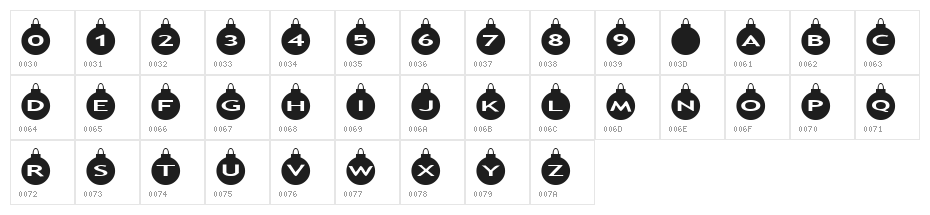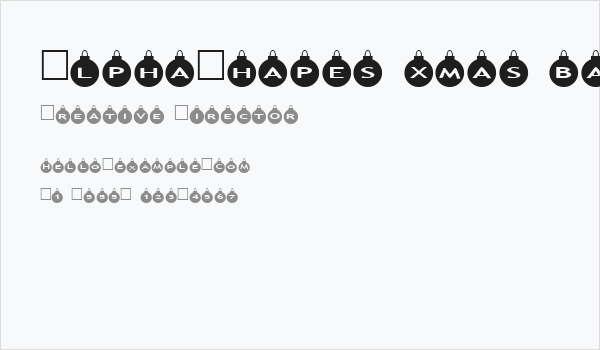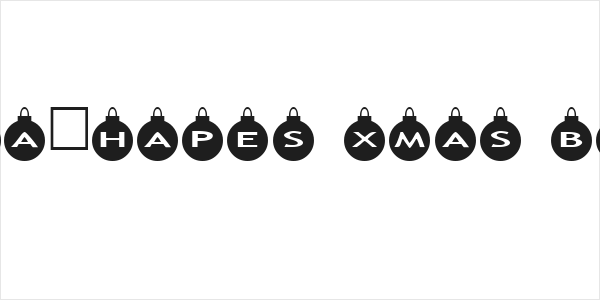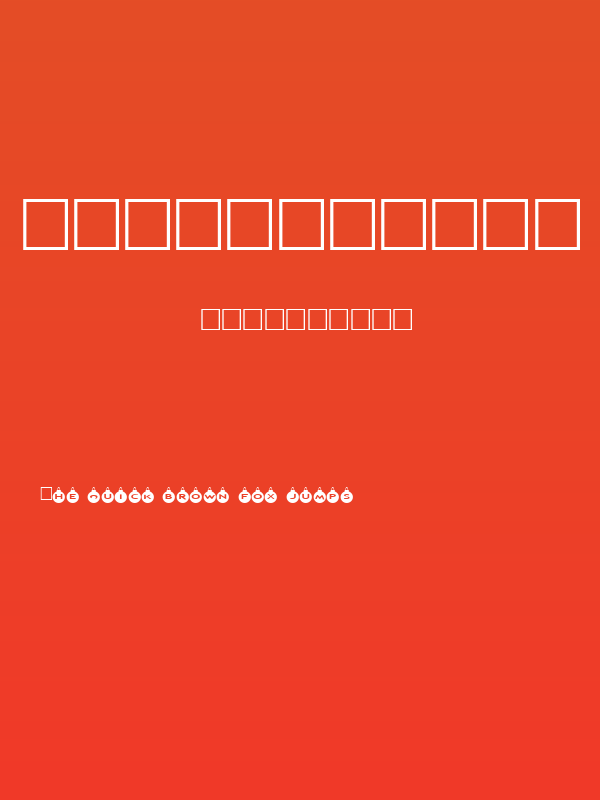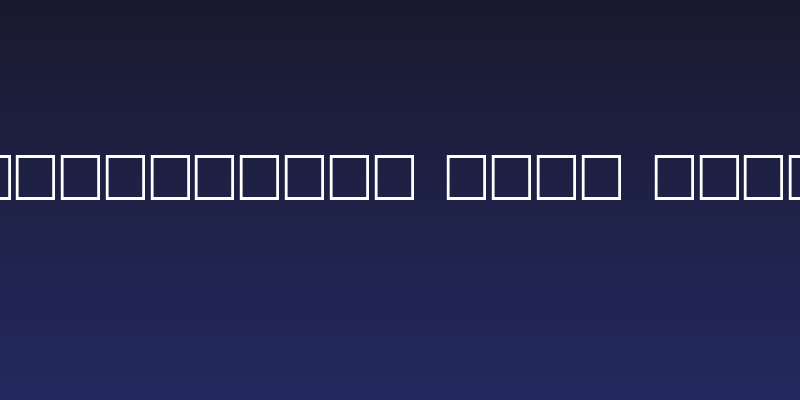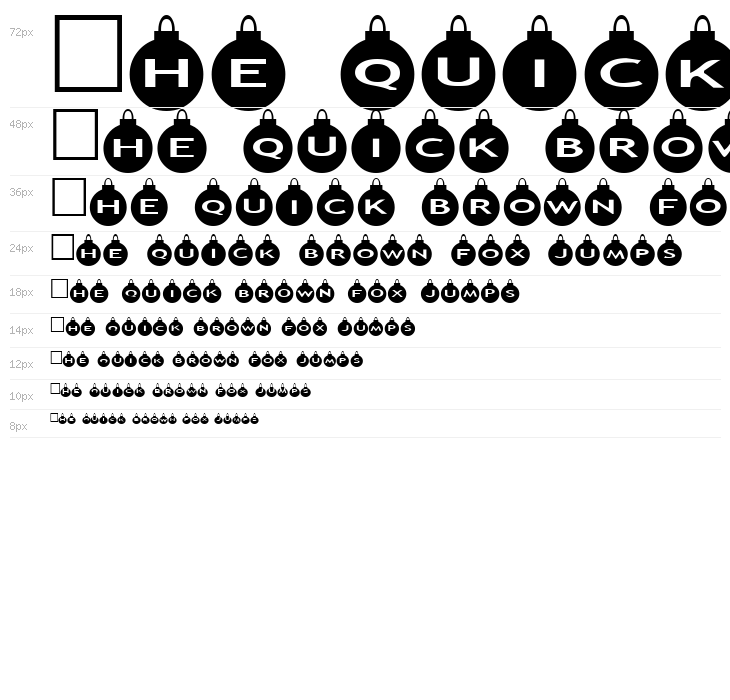
AlphaShapes xmas balls Font
AlphaShapes xmas balls Description
This decorative font features uppercase letters and numbers encased in Christmas ornament shapes, creating a festive and playful appearance. Each character is centered within a circular ornament, complete with a small loop at the top, mimicking the look of a traditional holiday bauble. The letters are bold and sans-serif, ensuring readability while maintaining a whimsical style. The numbers follow the same design, providing a cohesive look across all characters. This font is perfect for holiday-themed projects, adding a touch of seasonal cheer to any design.
| Proposed Projects | Ideal for holiday cards, festive banners, seasonal advertisements, and Christmas-themed invitations. |